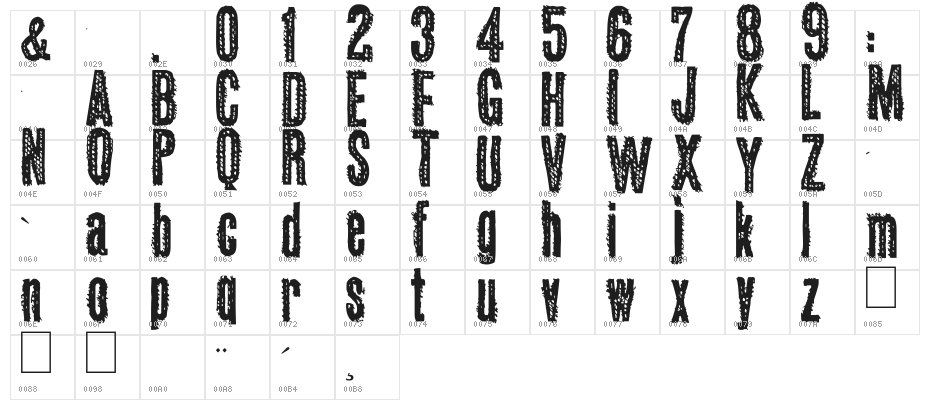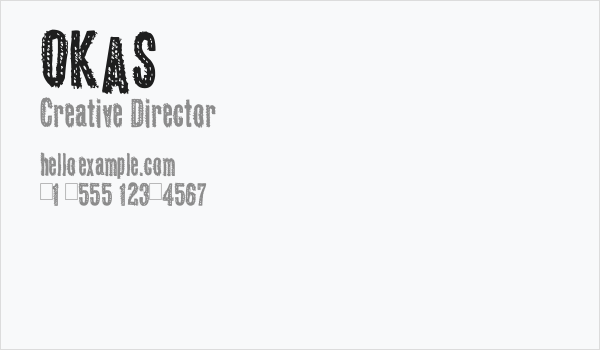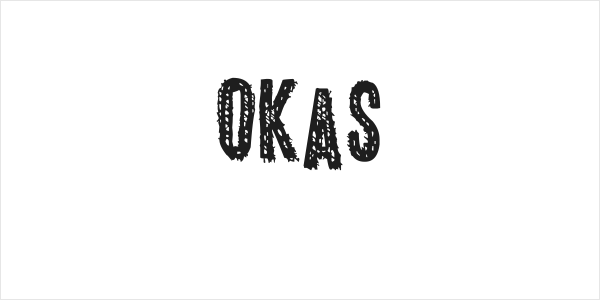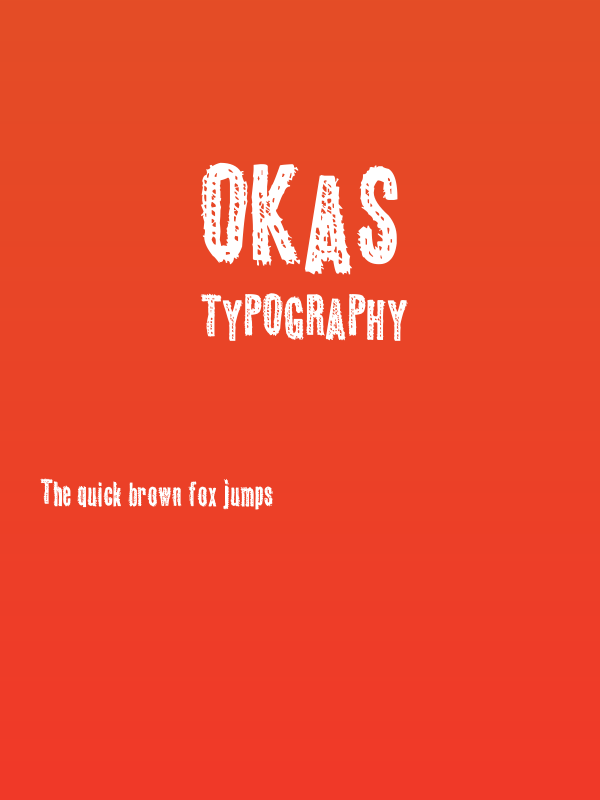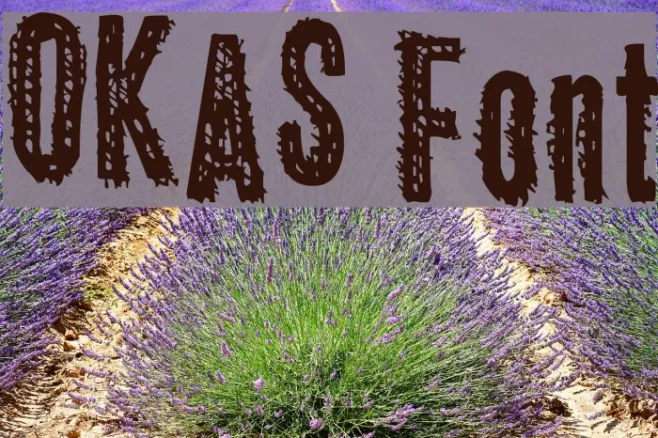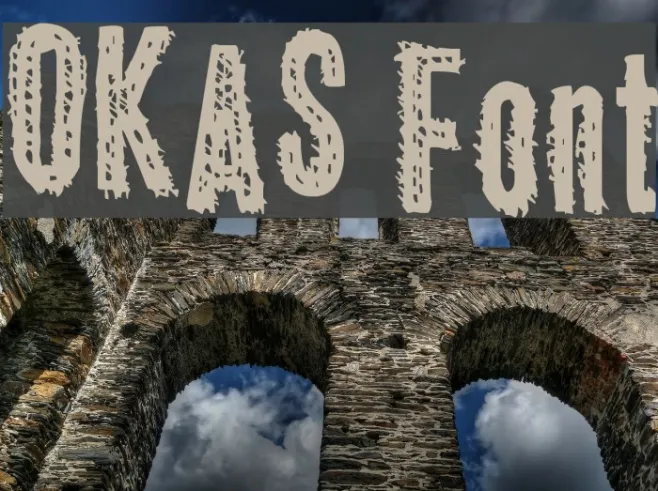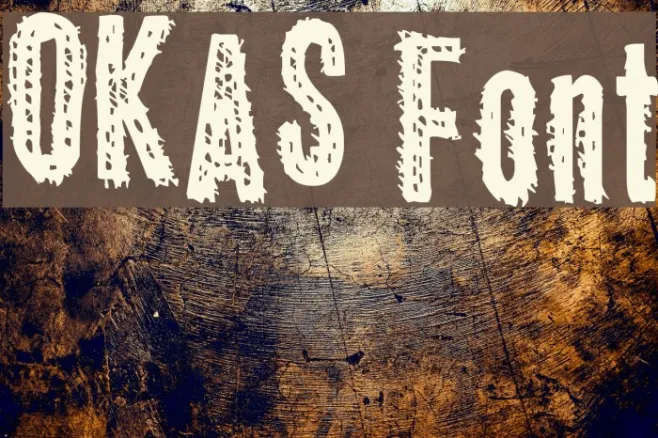
OKAS Font
OKAS Description
This font exhibits a rugged, distressed style with a bold and heavy appearance. The characters are filled with a textured pattern that resembles scratches or worn-out surfaces, giving it a raw and edgy look. The uppercase and lowercase letters maintain a consistent height, while the numbers and special characters follow the same distressed theme. The font's unique design makes it stand out, making it suitable for projects that require a bold statement or a grunge aesthetic.
| Proposed Projects | Ideal for album covers, posters, urban-themed designs, or any project needing a grunge or edgy look. |